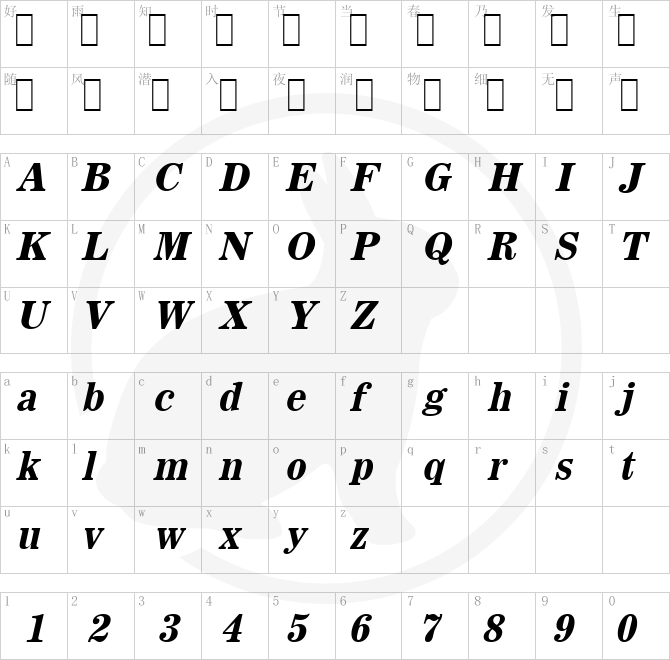
- Font Name:Sachem
- Subfamily:Bold-Oblique
- Subfamily:Alts:Sachem Bold-Oblique
- Full Name:Sachem Bold-Oblique
- PostScript:Sachem-Bold-Oblique
Sachem-Bold-Oblique.ttf is a very beautiful artistic font, Sachem-Bold-Oblique.ttf is widely used in the design and printing of various books and pictures,Sachem-Bold-Oblique.ttf has a strong visual impact,Sachem-Bold-Oblique.ttf is a commonly used font in newspapers, magazines and books, and is used in posters, e-commerce Poster design, store design, logo design, font design and other fields.Sachem-Bold-Oblique.